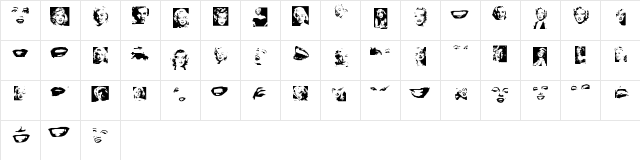
Monroe Dingbats Regular
Monroe Dingbats Regular Font Preview
Monroe Dingbats Regular Uppercase Preview
Monroe Dingbats Regular Lowercase Preview
Monroe Dingbats Regular Numeric Preview
Monroe Dingbats Regular Character Map
Complete Monroe Dingbats Regular glyph index. Displaying only characters natively supported by Monroe Dingbats Regular font.
Monroe Dingbats Regular Character Map
Design Context for Monroe Dingbats
Monroe Dingbats is a composed and adaptable typeface that performs quietly and consistently across a wide range of design contexts.